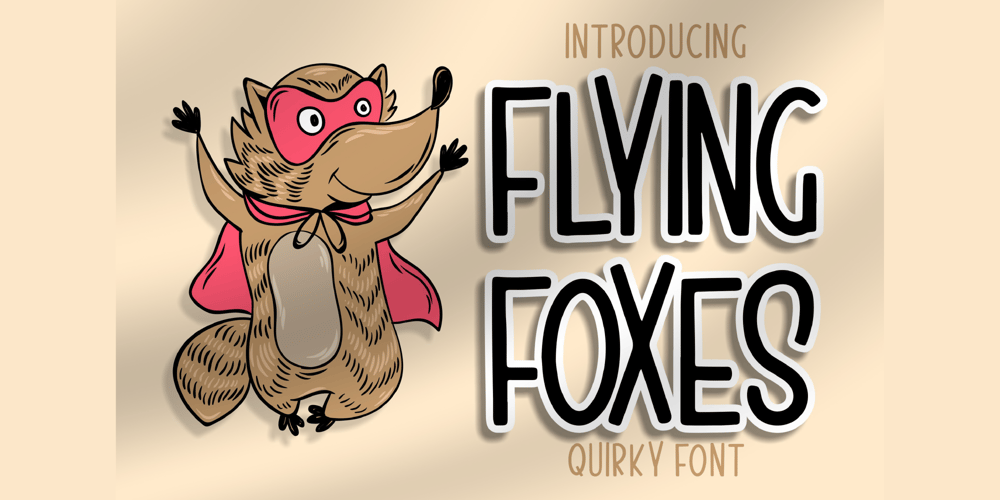
Flying Foxes Font Family was designed by Dimas Alif Maulana and published by Integritype. Flying Foxes contains 2 styles and family package options. Flying Foxes is a cute and quirky display font. It has a modern yet whimsical style and it will undoubtedly immerse your designs into a magical world.